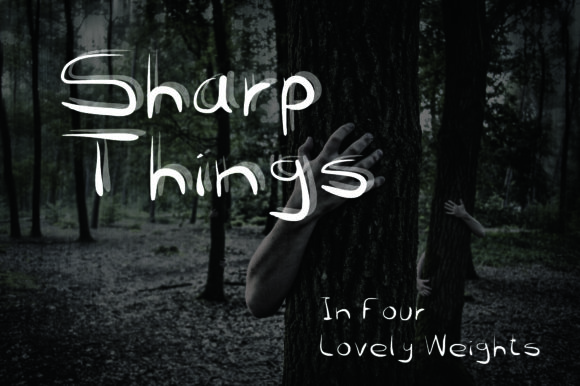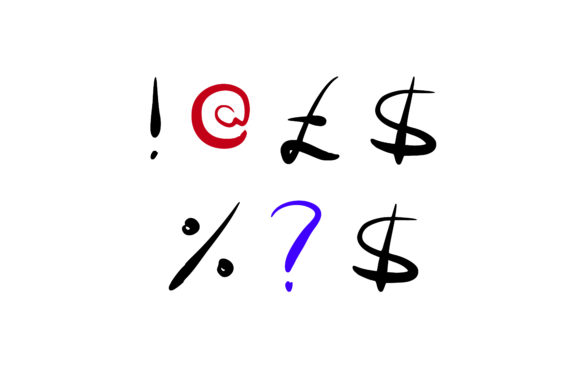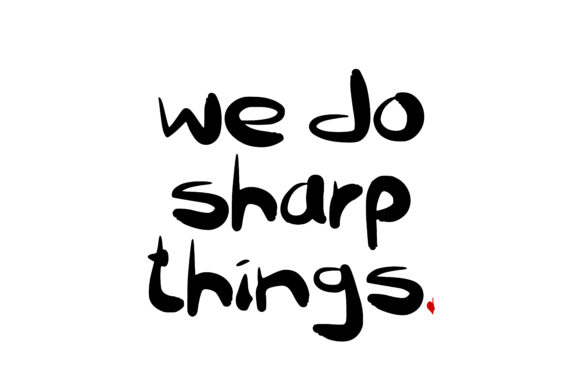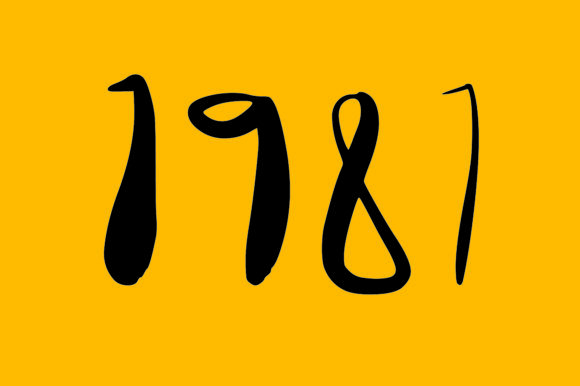
HomeScript FontsSharp Things Font Script Fonts Sharp Things Font FacebookXPinterestWhatsApp Sharp Things Font Poster 2 Sharp Things Font Poster 3 Sharp Things Font Poster 4 About Sharp Things Font A mixture of sharp features with some rounded elements give this a dark Halloween themed font a unique charm. DOWNLOAD ON CREATIVE FABRICAThis font is sold and delivered by Creative Fabrica. Font Canyon may earn a commission if you buy through this link. People also explored Autography Font White Bag Mockup,tote Bag Mockup Canvas Bocah Font Laziest Cat Font Chameleon Script Font Huckleberry Christmas Font Halloween Island Font Degtan Font 343 0 TagsSharp Things Font Previous articleNow Spiders FontNext articleReal Ohio Duo Font LEAVE A REPLY Cancel reply Comment: Please enter your comment! Name:* Please enter your name here Email:* You have entered an incorrect email address! Please enter your email address here Website: Save my name, email, and website in this browser for the next time I comment. Personal Use Free Malinda Personal Use Free Read more about this font Sathscha Personal Use Free Read more about this font Hollow Personal Use Free Read more about this font Septhine Personal Use Free Read more about this font BLOG Where to Buy American Fonts Online in 2024 Where to Buy American Fonts Online: The Ultimate Guide for 2024 Looking for the perfect American font to elevate your design projects? You're in the... Top 10 Handwritten Fonts That Elevate Your Designs How to Cut Any Font on Cricut: Convert a Font to SVG (Free) Free vs Paid Fonts: Why Investing in Premium Fonts Is Worth It